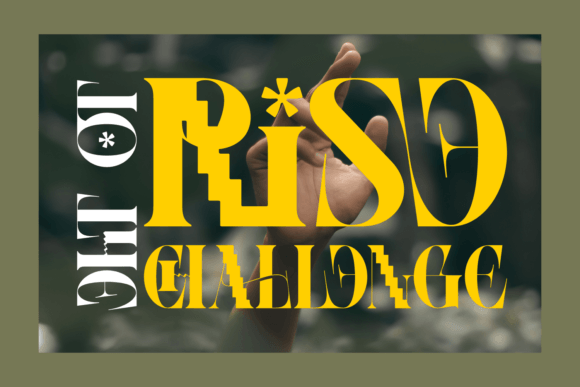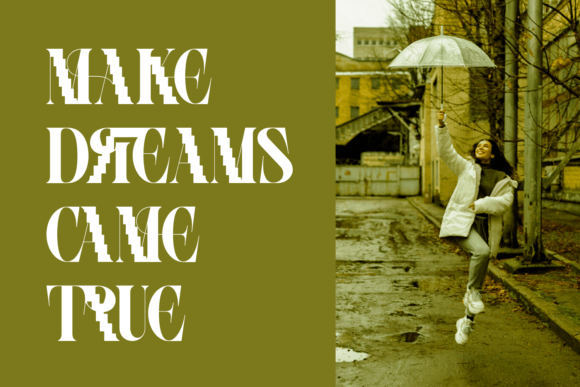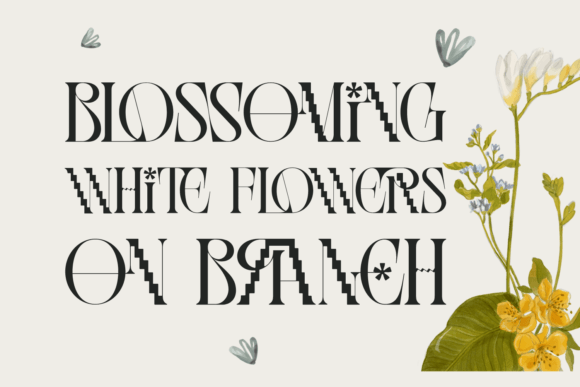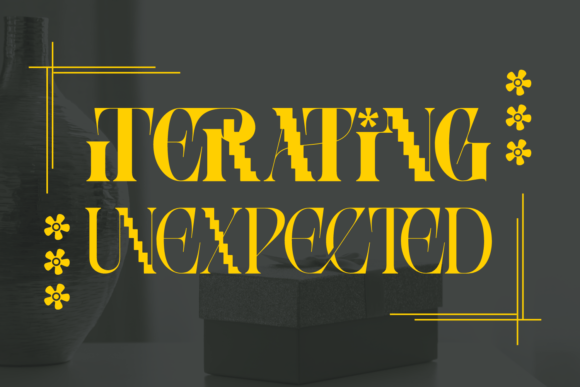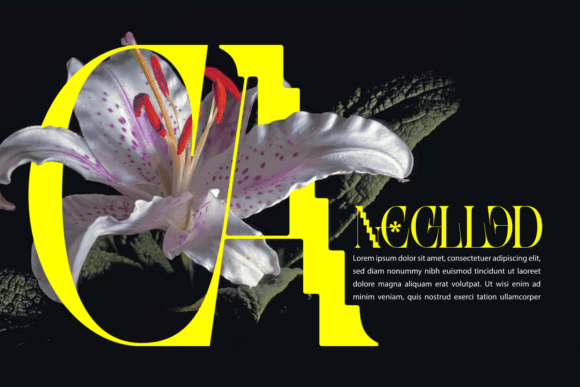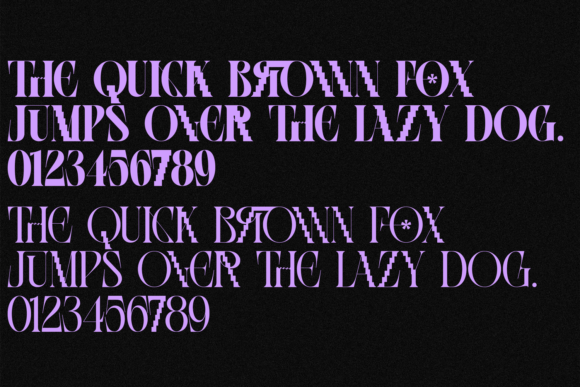
Introduction to However Font Font
Fonts play a crucial role in design, and the However Font font is a typeface that brings both character and versatility to any project. Whether you’re working on a branding project, a website, or a print design, the However Font font offers a unique style that can elevate your work.
However Font is a modern serif font that combines timeless elegance with a pixelated twist.
This typeface embodies a captivating blend of classic refinement and cutting-edge attitude Think sleek serifs, graceful curves, and a dash of pixelated rebellion.
Key Features of However Font Font
Why Choose However Font Font?
The However Font font is more than just a typeface – it’s a design tool that helps you communicate your message with style and clarity. Its unique character set and versatile design make it suitable for a wide range of applications, from elegant invitations to bold headlines.
With its carefully crafted letterforms and balanced proportions, the However Font font ensures readability and visual appeal across all mediums.
What makes However Font font special?
The However Font font stands out with its unique design, exceptional readability, and versatility across various design applications.